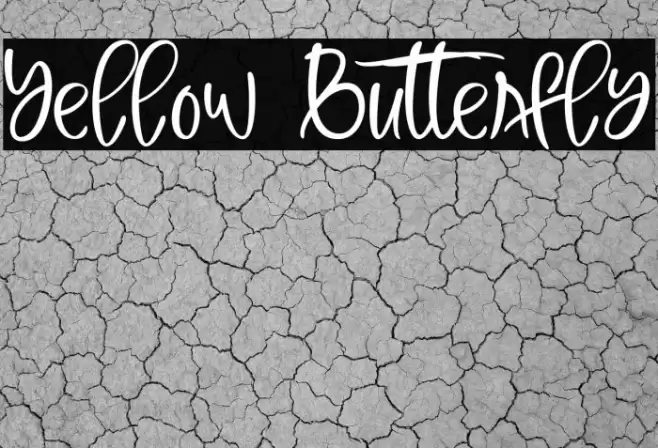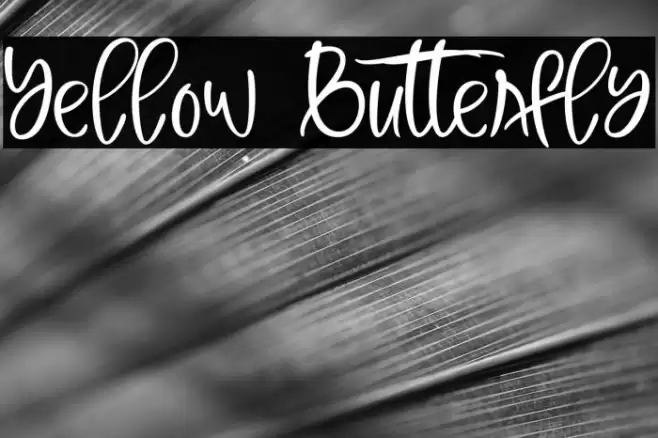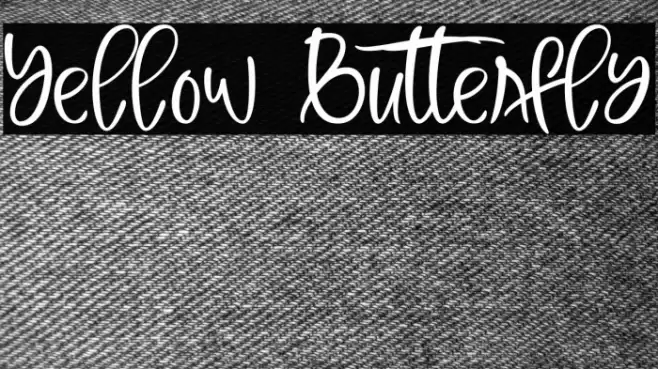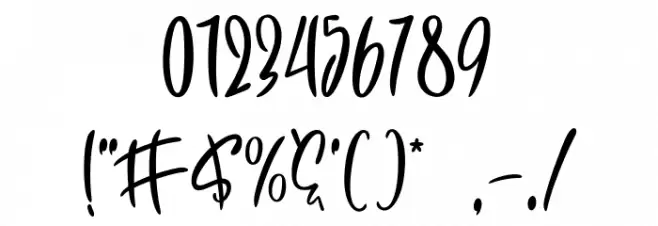
Yellow Butterfly Font
Yellow Butterfly Description
This font exudes a playful and energetic vibe, characterized by its handwritten style with a touch of elegance. The letters are fluid and dynamic, with a slight slant that adds to its casual yet sophisticated appearance. The strokes vary in thickness, giving it a lively and organic feel. The uppercase and lowercase letters maintain a consistent style, while the numbers and special characters blend seamlessly with the overall design. This font is perfect for projects that require a personal and approachable touch, such as invitations, greeting cards, or branding materials.
A playful and elegant handwritten font with dynamic strokes from Regular fonts.
- Proposed Projects: Ideal for invitations, greeting cards, branding, and personal projects.
- Overall Style: Casual and Elegant
- Use Case: Headlines, Logos, Invitations